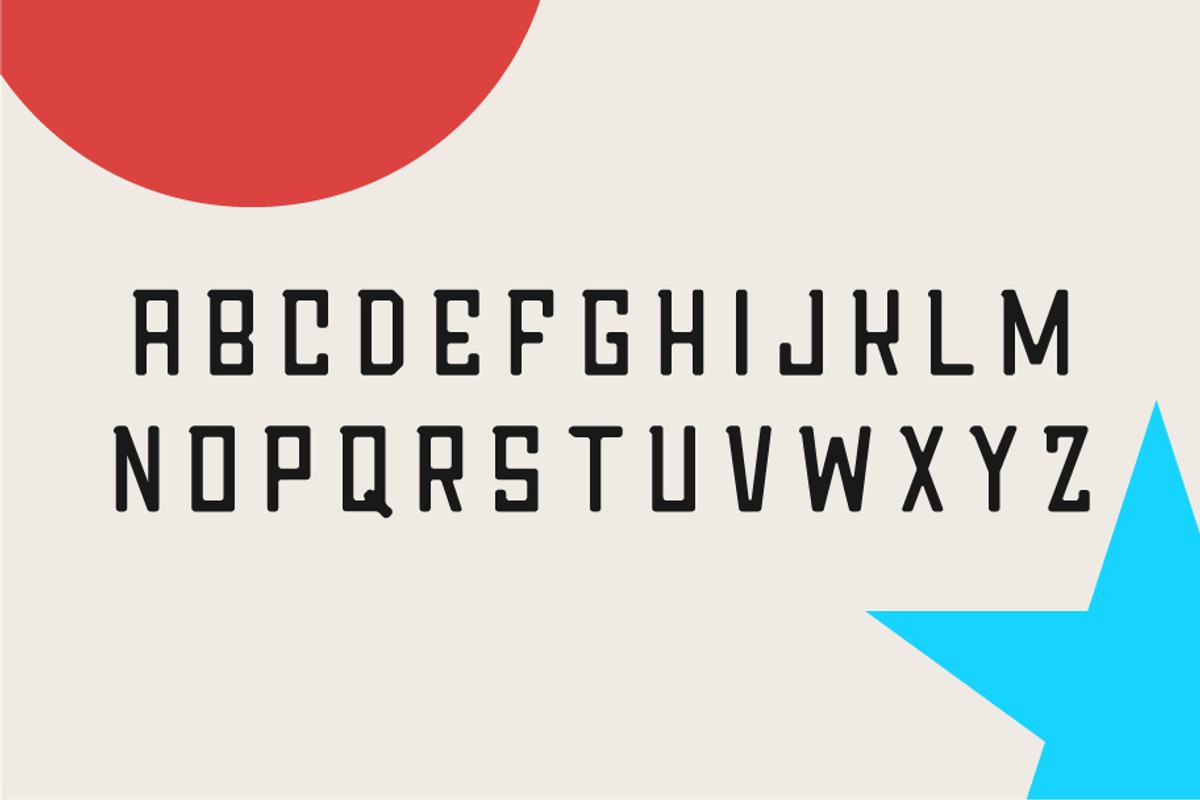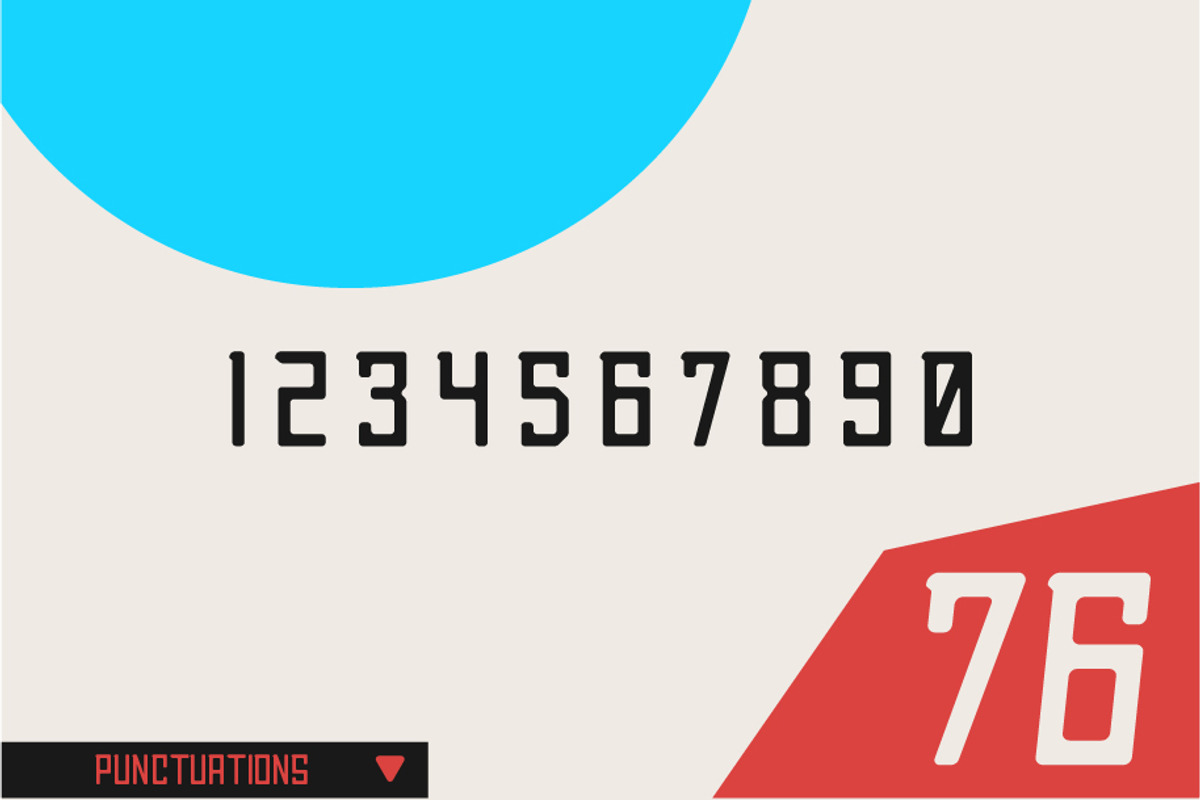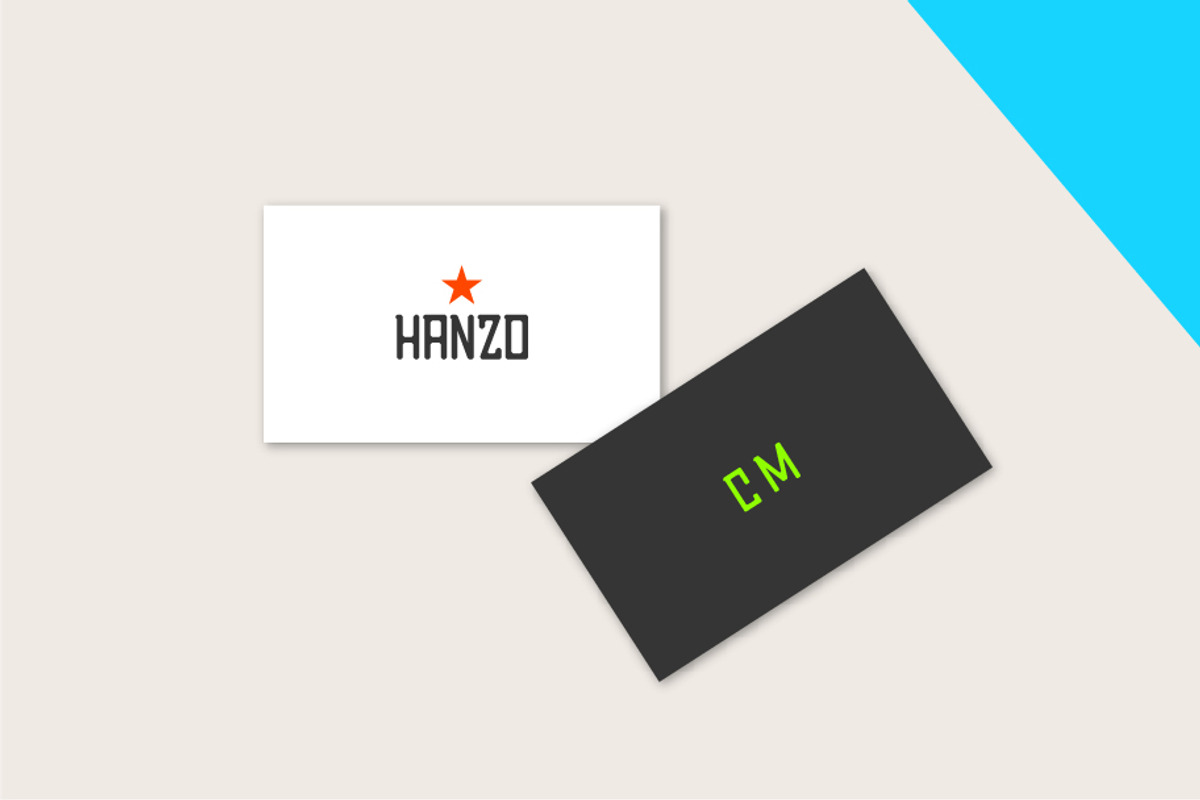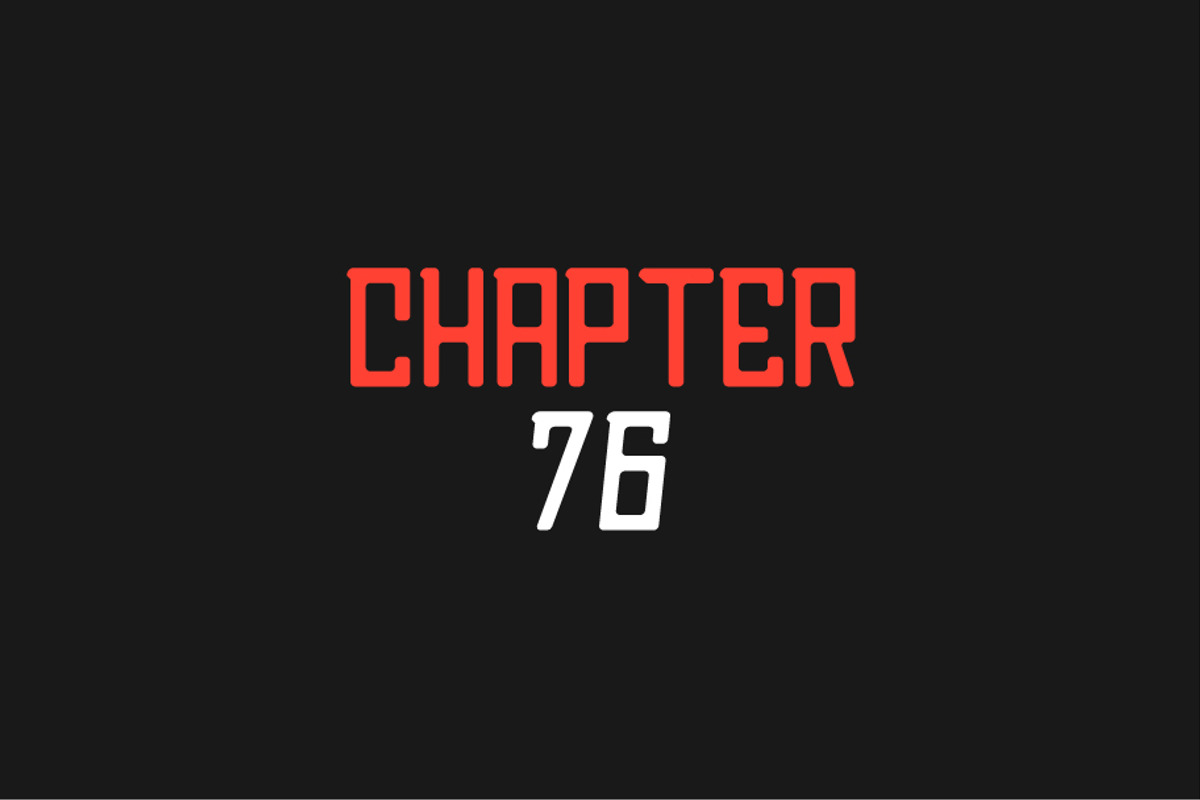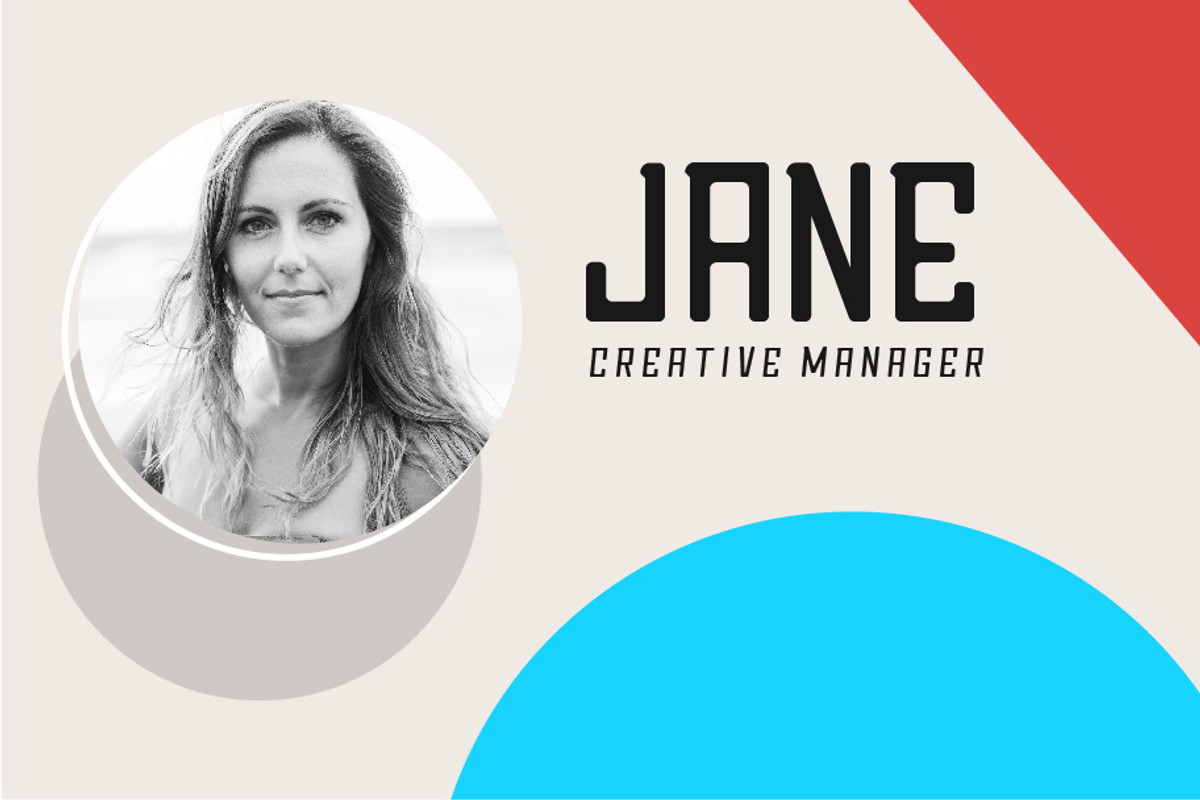
Chapter76 Sans Font
Chapter76 is a new sans font. Chapter76 is suitable font for logo, signature, label, poster, letterhead, magazine headline, etc.
Chapter76 Sans Font by yellowline fits naturally into Branding, posters, packaging, typography.